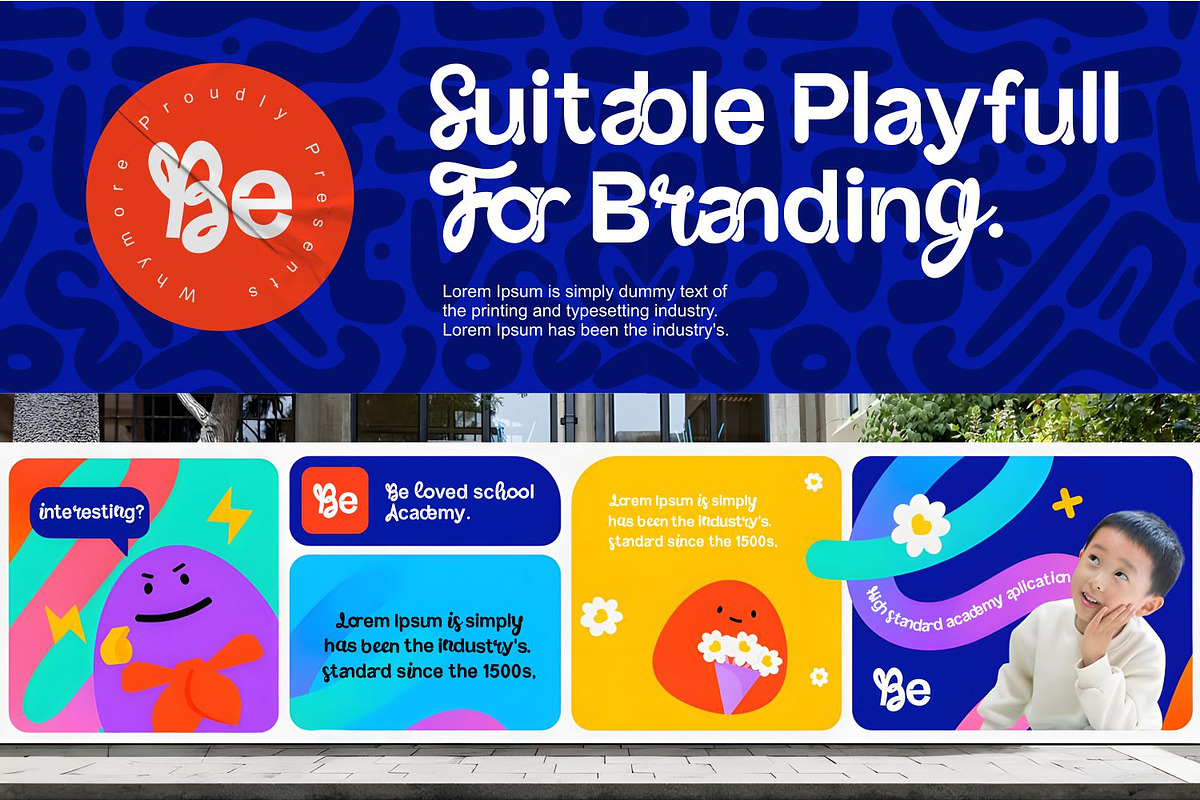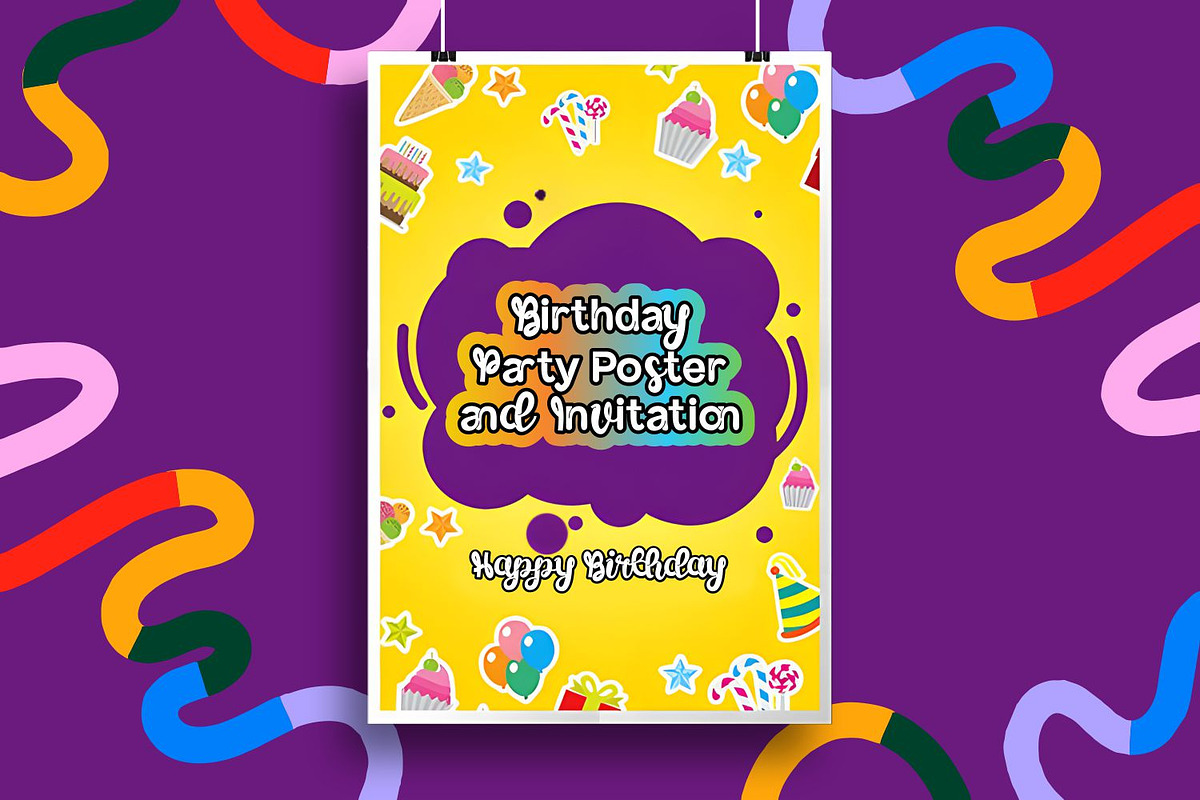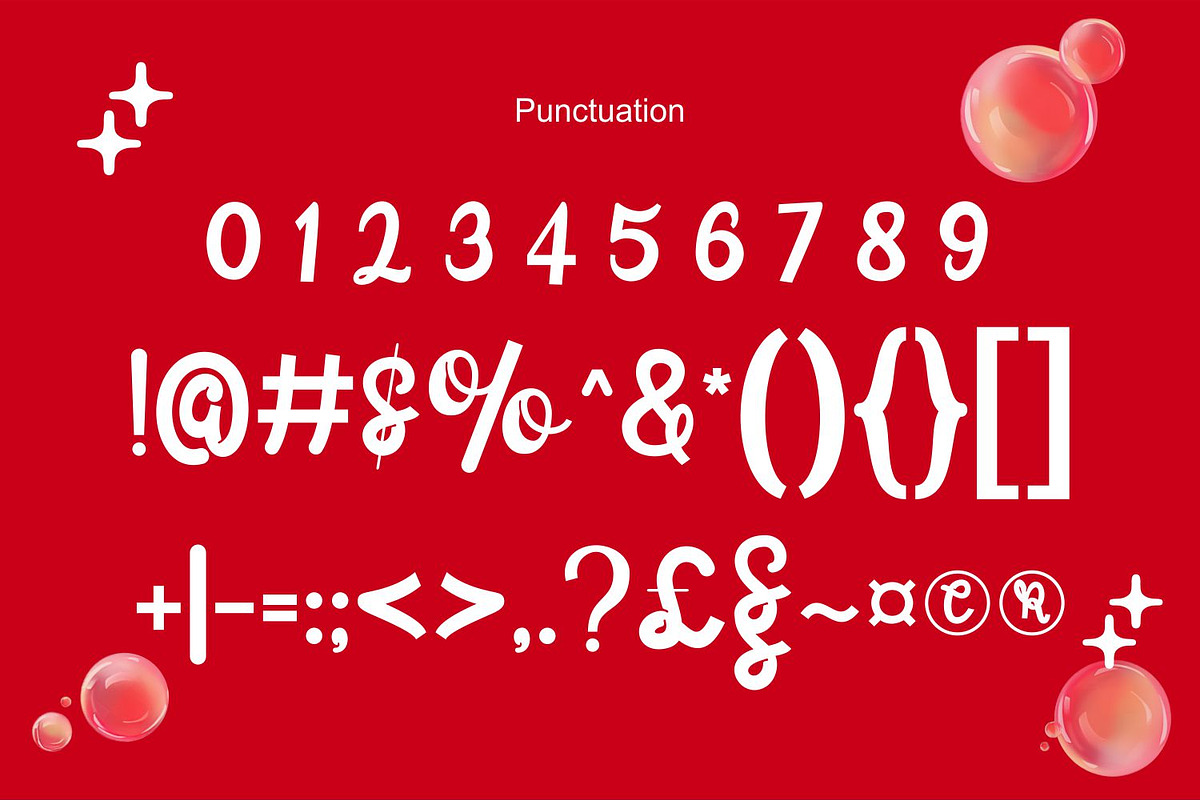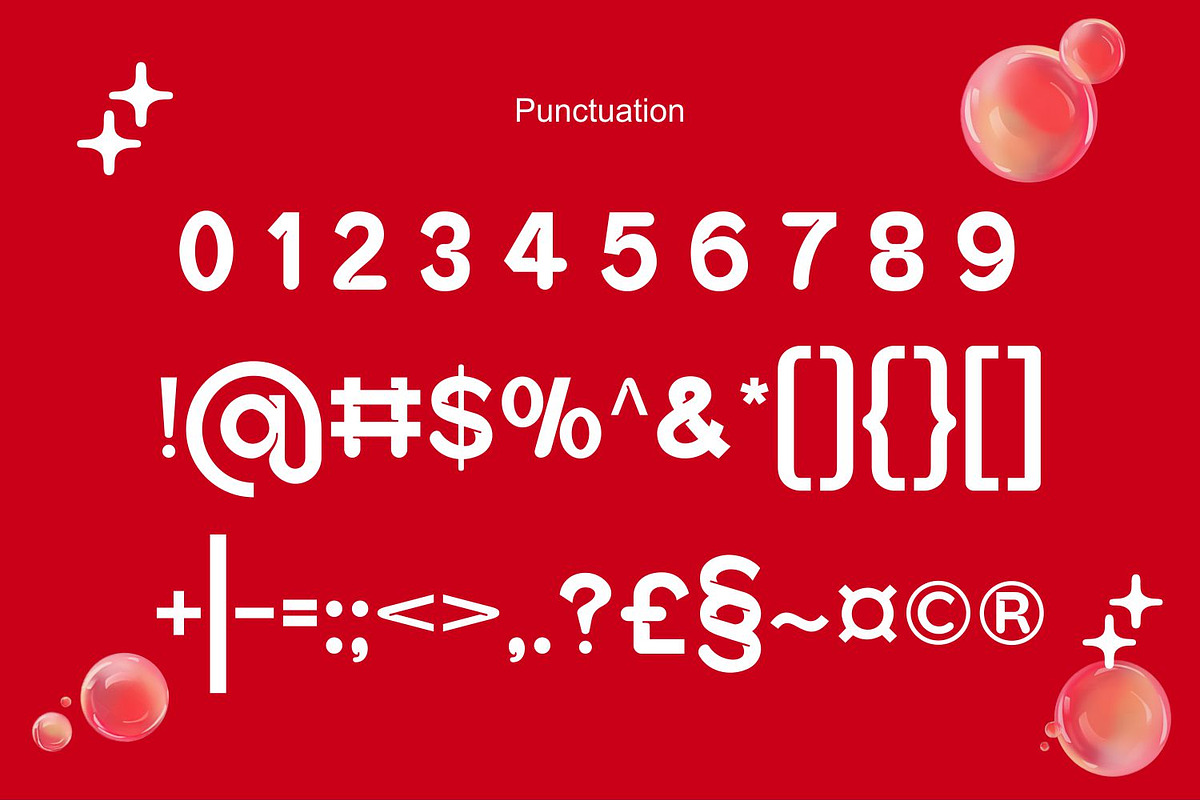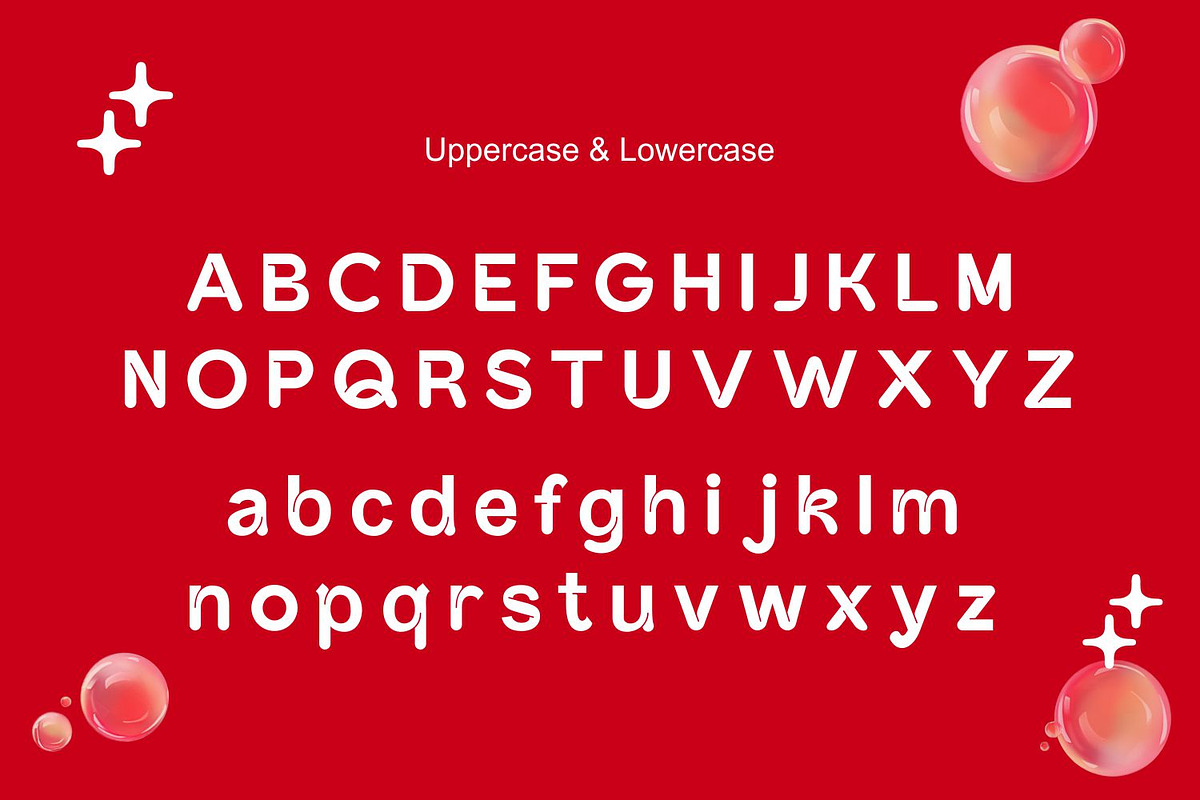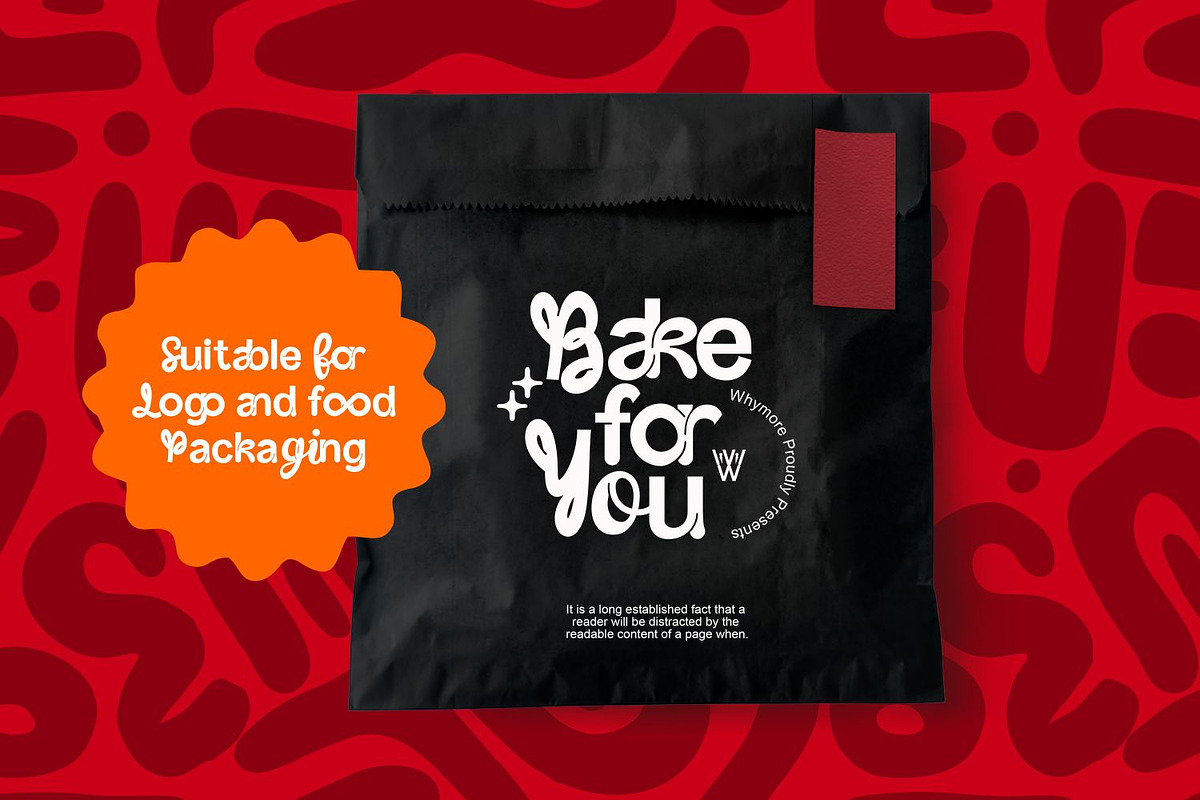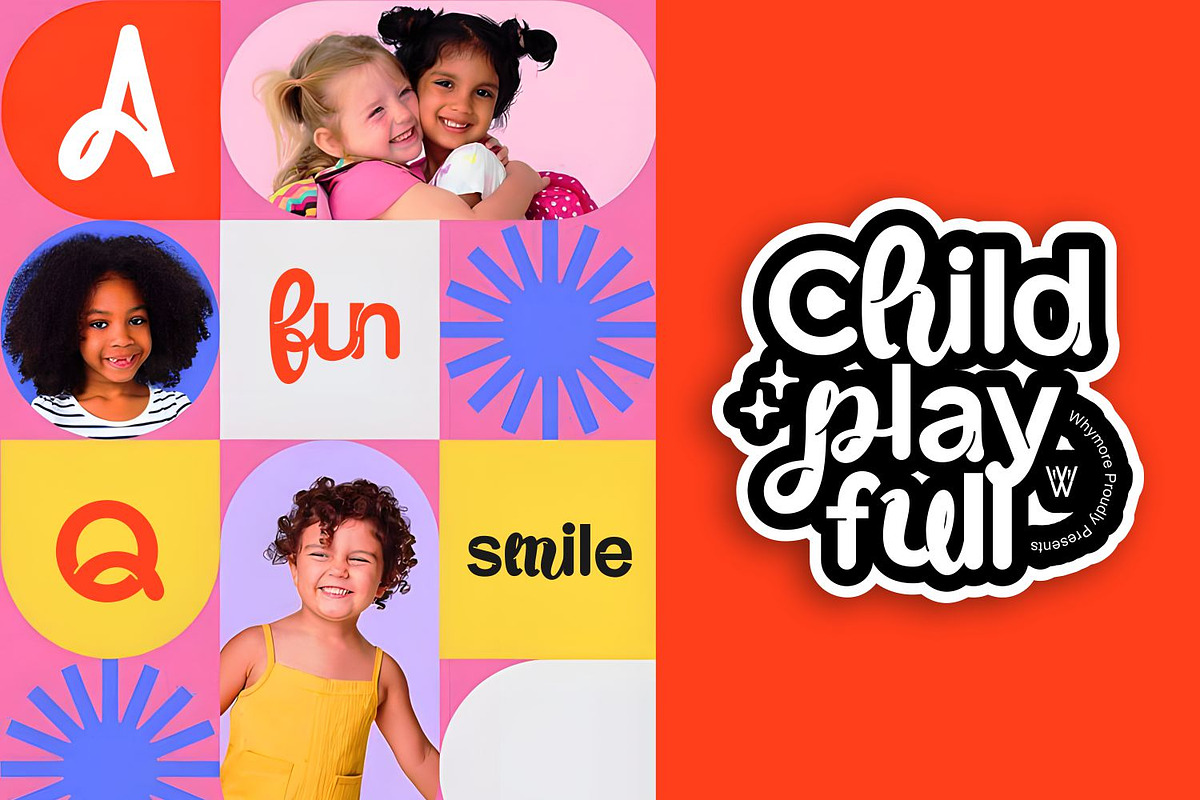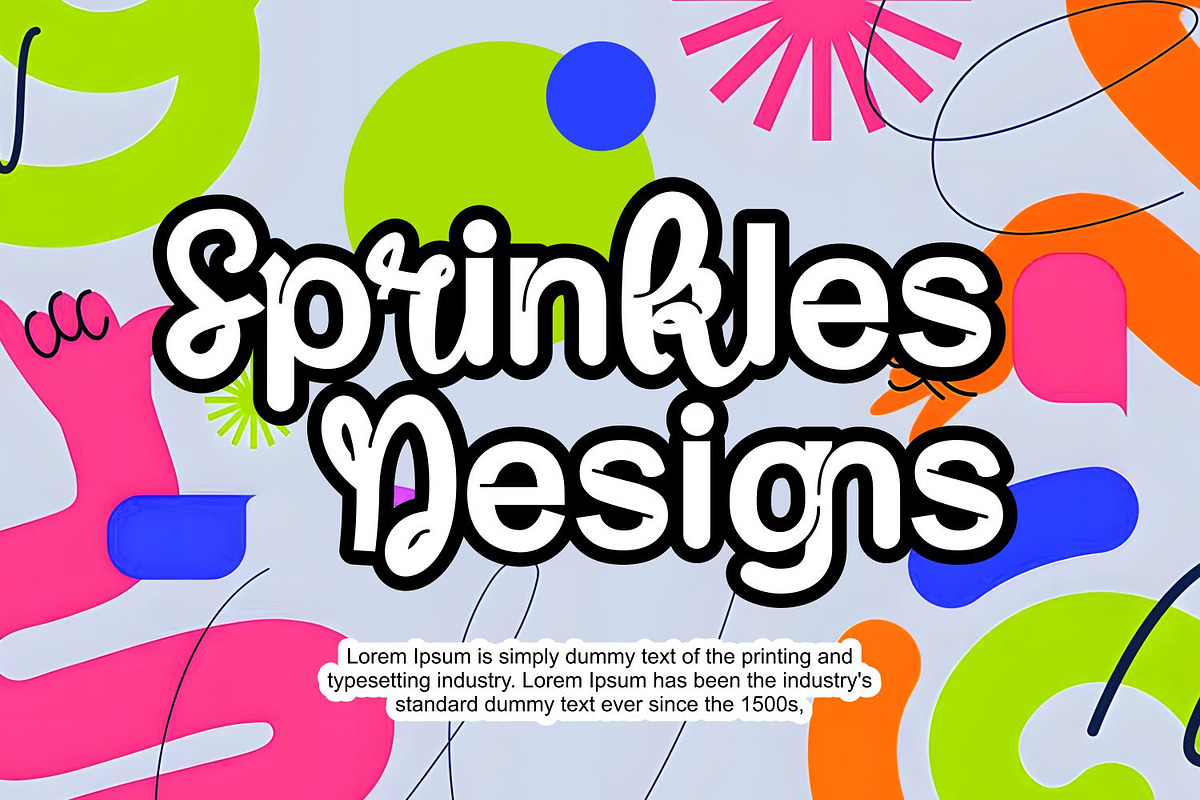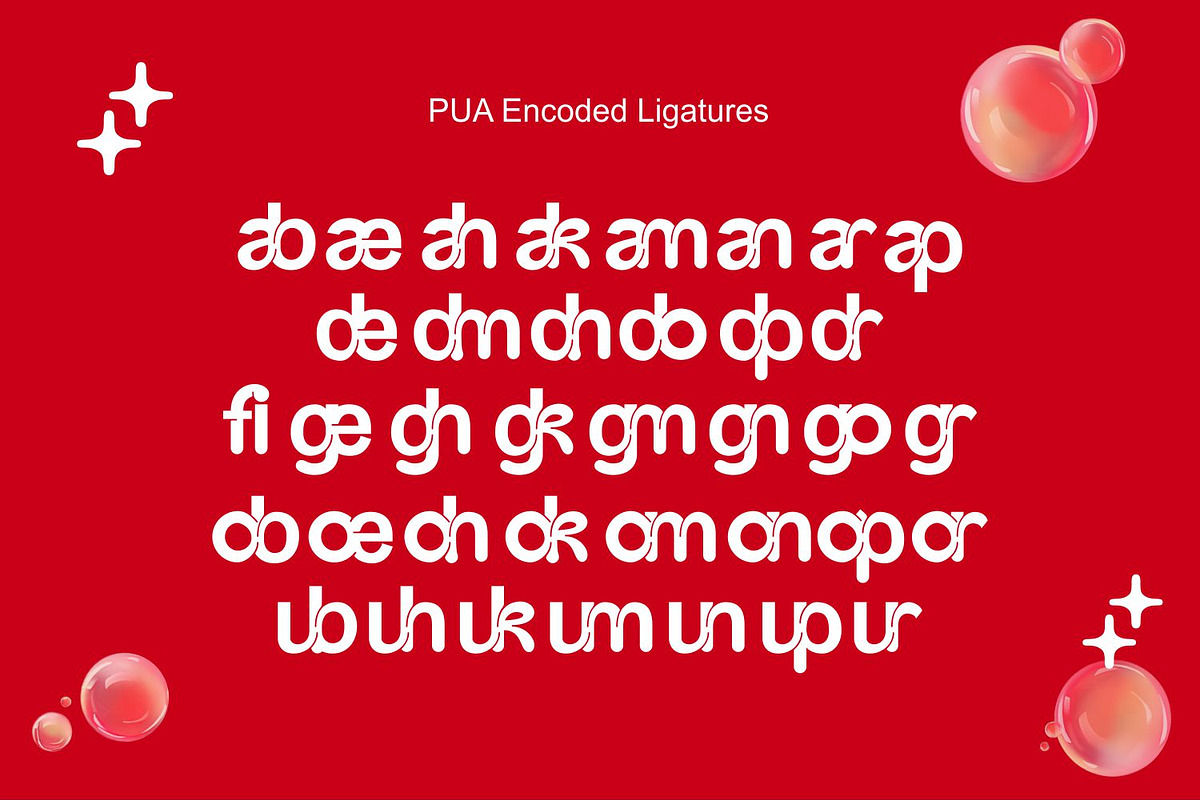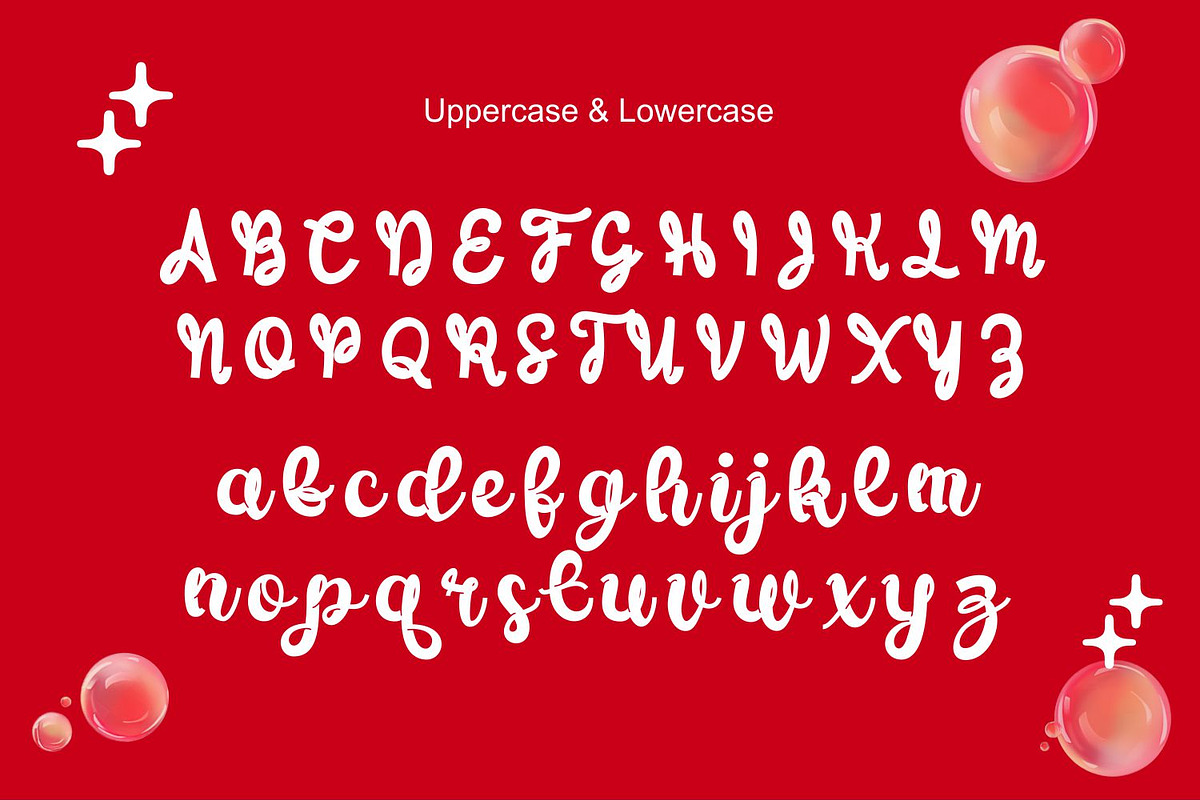
Bubble Bloom – Playful Rounded Font
Introducing Bubble Bloom – a bold, bubbly, and playful typeface that brings joy and personality to any design! With its rounded shapes and clean curves, Bubble Bloom is perfect for branding, packaging, children's books, posters, YouTube thumbnails, and social media graphics.
This font is designed to stand out while remaining easy to read, making it ideal for both digital media Branding. Add a touch of fun and charm to your creative projects with Bubble Bloom!
💖 Perfect for:
• Fun branding & logos
• Packaging & product labels
• Kid’s books & birthday invitations
• Posters, YouTube thumbnails & social media
• Stickers
• Multilingual support
Let your designs bloom with Bubble Bloom!